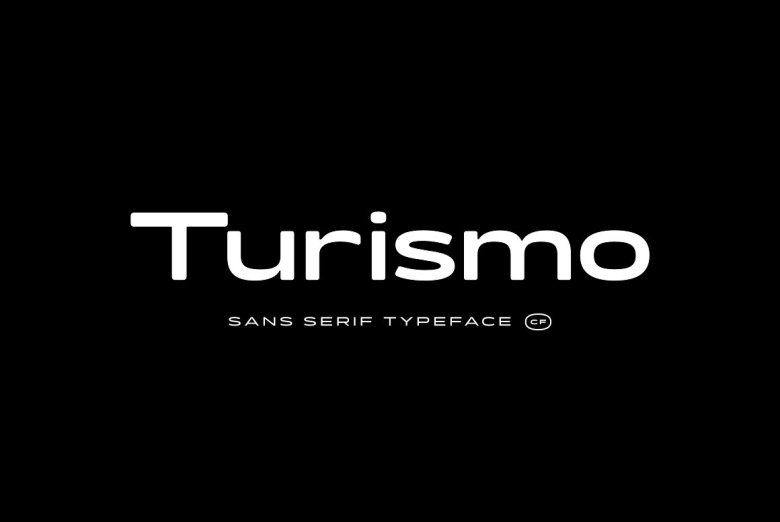
Turismo Font
Influenced by motorsports of the 1960s, tech, and business. Turismo features a distinctive CF style designed for striking logotypes and captivating headlines – with nods to 1920s and 1960s designs that combine strong rectangular structures with curving curves that extend further out.
Turismo Sans Serif Font